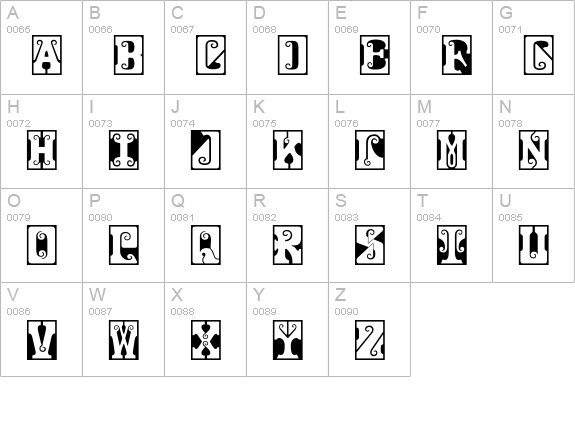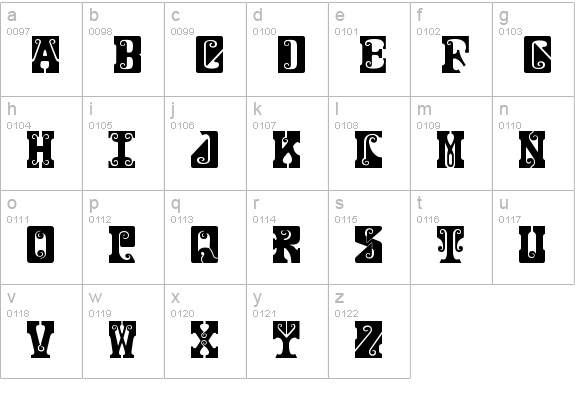
Gosford Font Details
Gosford font is a striking and elegant typeface that exudes sophistication and charm. Its timeless design features clean lines and subtle curves, making it perfect for a wide range of projects, from branding to editorial design. The versatile nature of Gosford font allows it to be used in both formal and casual settings, adding a touch of refinement to any project. What sets Gosford font apart is not only its stylish appearance but also its availability for free download at FontsMarket.com. This means that you can easily access this high-quality font without any cost, making it a valuable addition to your design toolkit. Whether you're working on a professional project or a personal endeavor, Gosford font is sure to elevate your design with its classic appeal and modern sensibility. Download Gosford font for free today and see how it can enhance your next creative project.